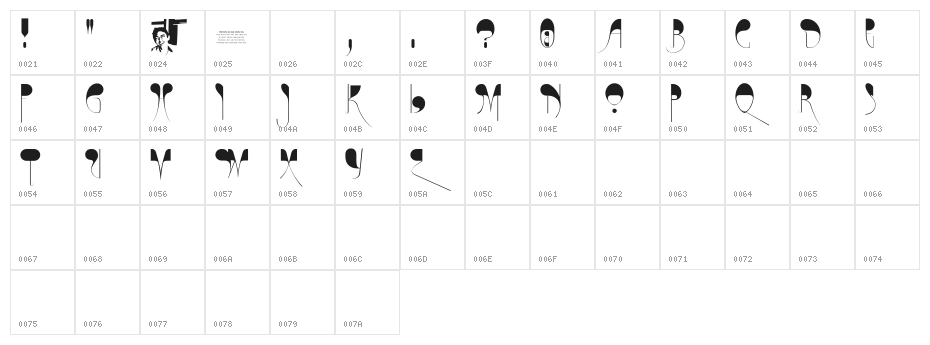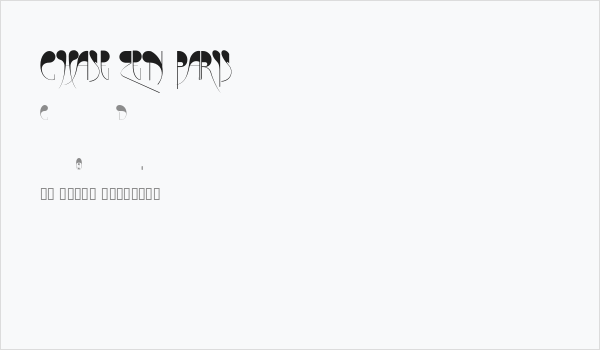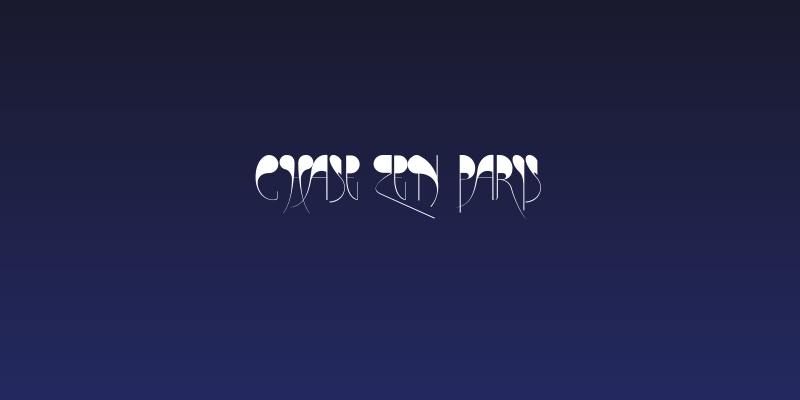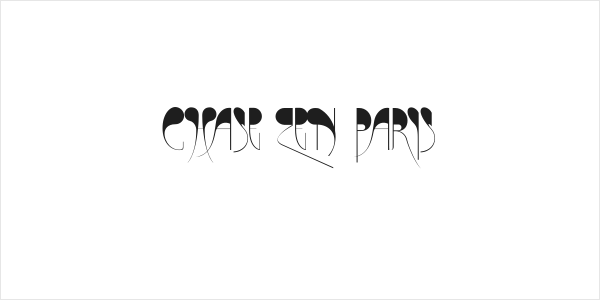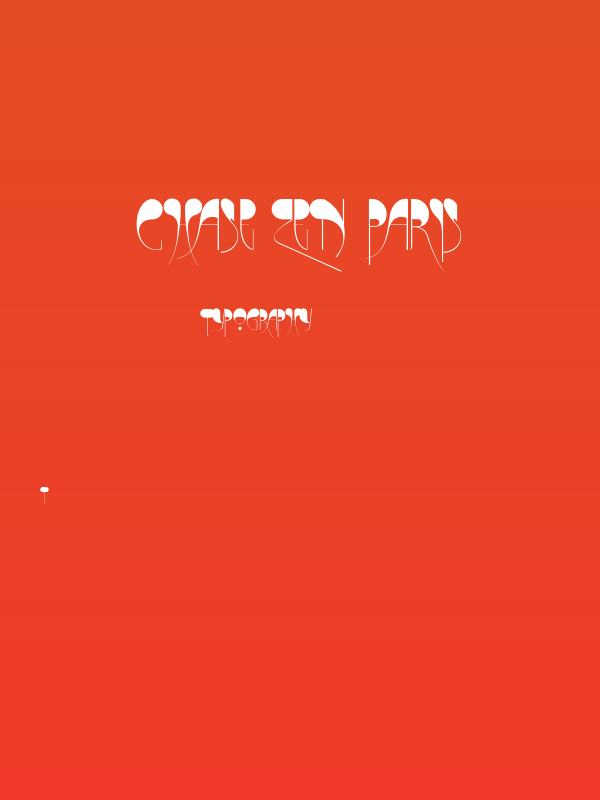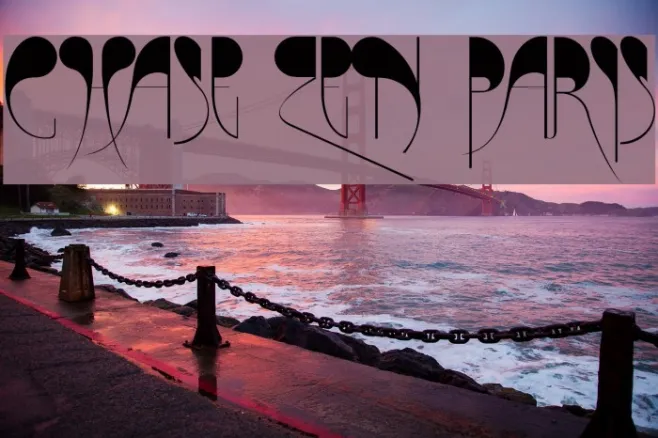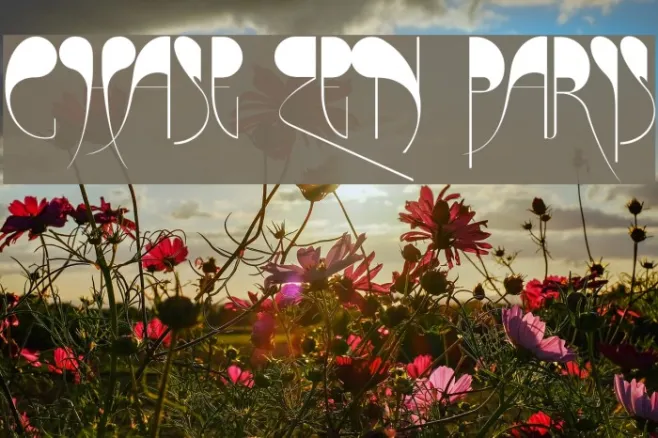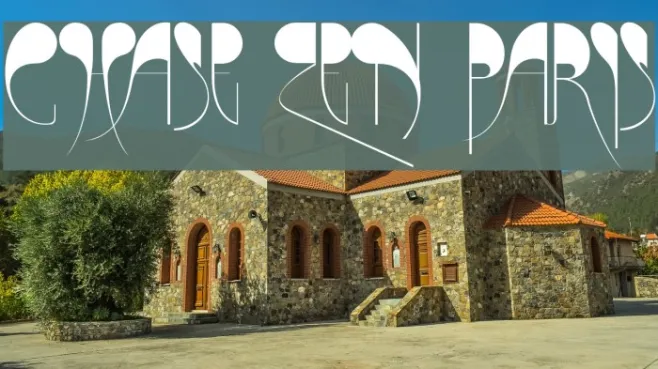
CHASE ZEN PARIS Font
CHASE ZEN PARIS Description
This font features a highly decorative and artistic design, characterized by its elongated and flowing letterforms. The uppercase letters exhibit a unique blend of sharp angles and smooth curves, creating a visually striking appearance. The lowercase letters maintain a similar style, with a playful and whimsical touch. The numbers are bold and geometric, adding a modern contrast to the overall design. Special characters are creatively integrated, enhancing the font's artistic appeal. This font is ideal for projects that require a distinctive and eye-catching typeface.
| Overall Style | Artistic, Modern |
| Proposed Projects | Ideal for branding, posters, album covers, and any creative project needing a unique and artistic touch. |